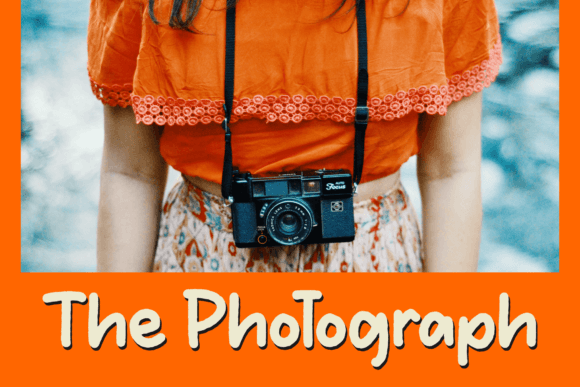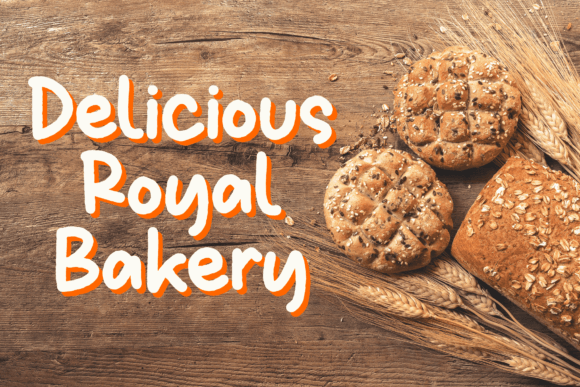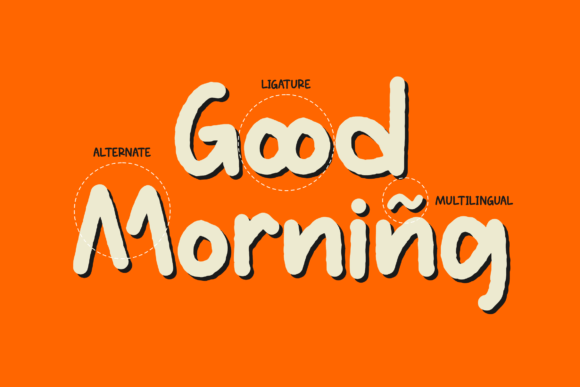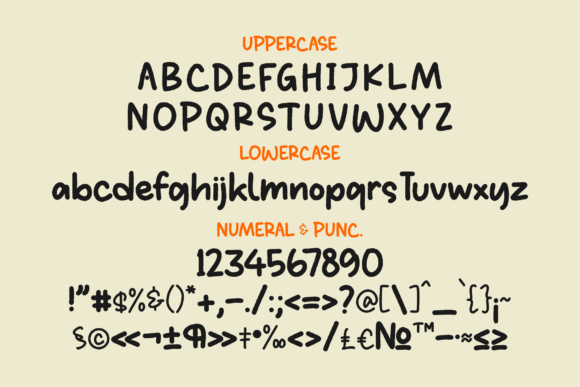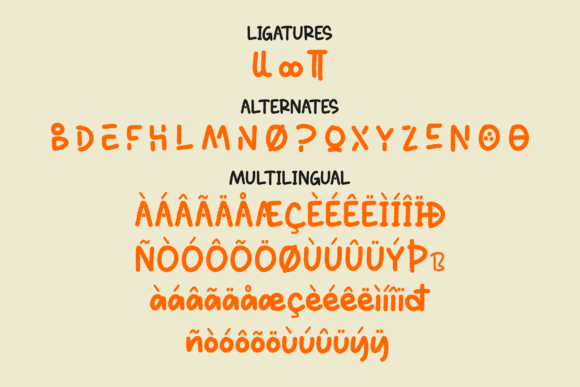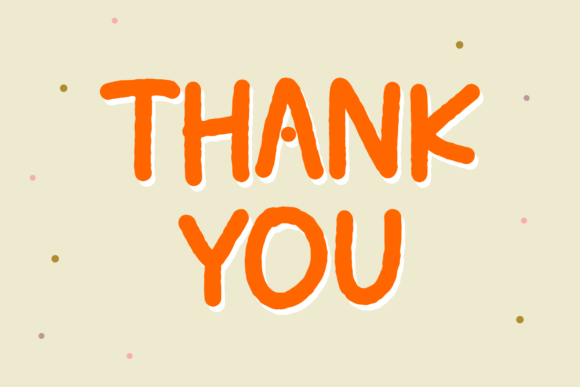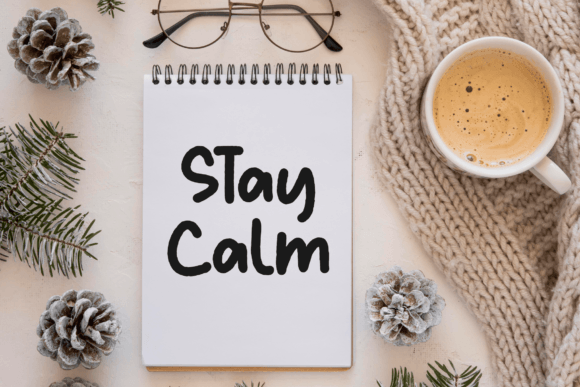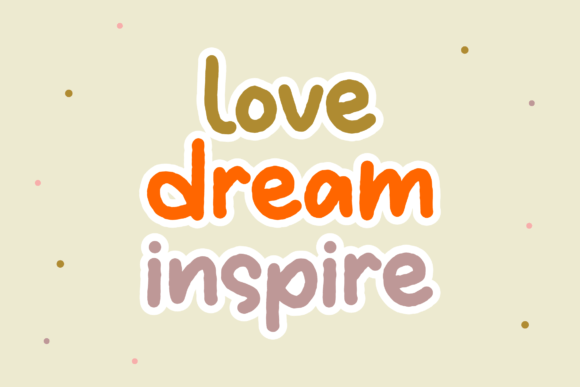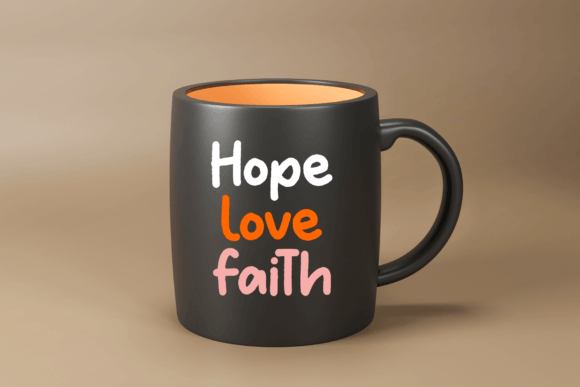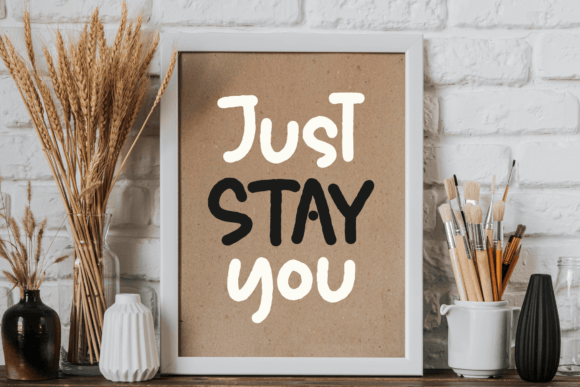
Bunny Candy Font
About Bunny Candy Font
Bunny Candy is a delightful handwritten font that adds a whimsical and charming touch to a wide array of creative projects. With its versatility, this font is an ideal choice for various design applications, allowing you to infuse a playful and beautiful script into your projects.
The font’s adaptability is evident in its suitability for logos and branding projects. Bunny Candy’s handwritten style brings a unique and lighthearted charm to logos, contributing to the creation of a distinctive brand identity that radiates a sense of playfulness.
For homeware designs, product packaging, and mugs, Bunny Candy imparts a sense of joy and creativity. The font’s whimsical script enhances the overall visual appeal, making your products not only visually appealing but also exuding a lively and charming aesthetic.
Bunny Candy is well-suited for conveying quotes, creating posters, and embellishing shopping bags. Its handwritten charm adds character and warmth to these applications, ensuring that your messages are not only visually captivating but also carry a touch of delightful personality.
When applied to T-shirts, book covers, name cards, invitation cards, greeting cards, and labels, Bunny Candy introduces a beautiful script taste, elevating your designs with a touch of playful individuality. The font’s fluid and expressive strokes seamlessly integrate into a variety of print materials.
In the realm of photography and watermark applications, Bunny Candy provides a whimsical and stylish signature, adding a subtle yet distinctive touch to your images. Special events, such as weddings or celebrations, are enhanced by the font’s lively script, creating an atmosphere that is both festive and joyful.
In summary, Bunny Candy is not just a font; it’s a versatile design asset that brings joy and playfulness to your projects with its delightful handwritten script. Whether you’re working on branding, product design, print materials, or special events, Bunny Candy is a beautiful choice for adding a whimsical script taste to your lovely and creative endeavors.